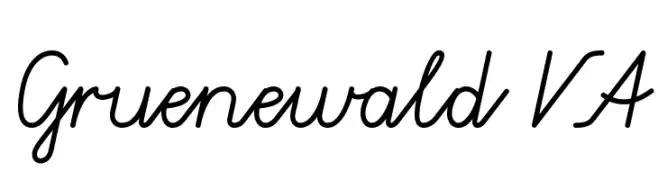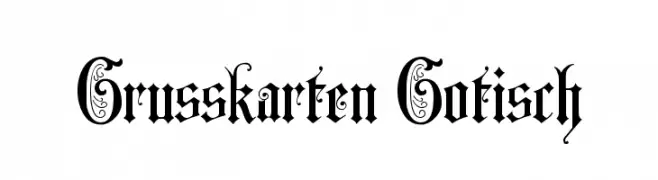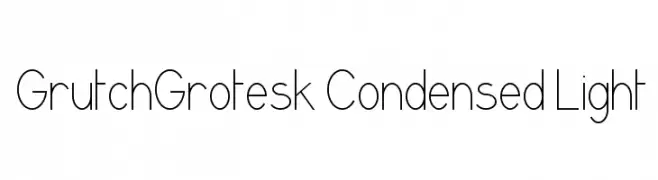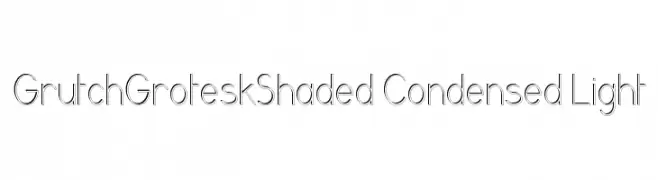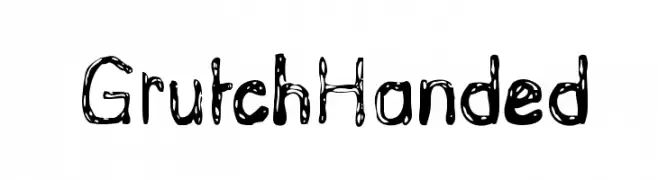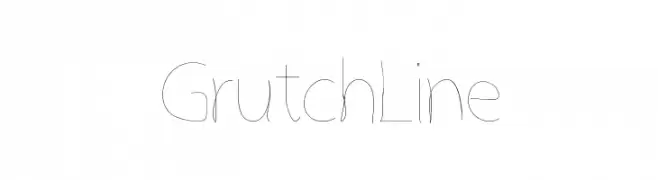
A cursive, handwritten-style font with smooth, connected letters and a natural flow.
( Fonts by Dieter Steffmann )
An ornate Blackletter font with decorative uppercase and sharp, angular lowercase letters.
( Fonts by Steeve Gruson )
A clean, minimalist font with a condensed and light structure.
( Fonts by Steeve Gruson )
A modern, shaded, condensed font with a light and geometric style.
( Fonts by Steeve Gruson )
A playful, hand-drawn font with irregular, fluid characters.
( Fonts by Steeve Gruson )
A delicate, hand-drawn font with thin, whimsical lines.